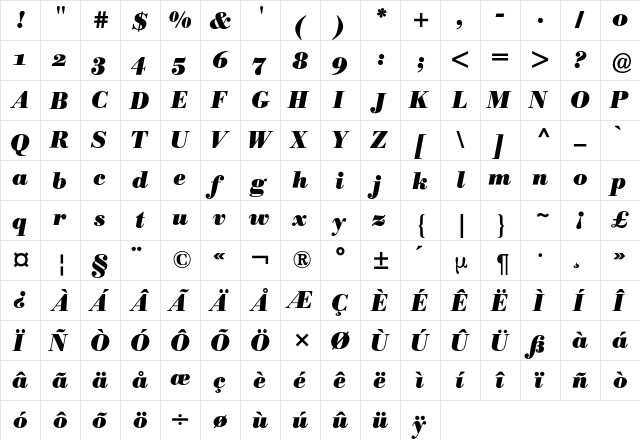
Bodoni Berthold Expert BQ Regular
Design Context for Bodoni Berthold Expert BQ Typeface
Bodoni Berthold Expert BQ offers clean, dependable letterforms without strong stylistic allegiance, making it a practical choice for designers who need flexibility.